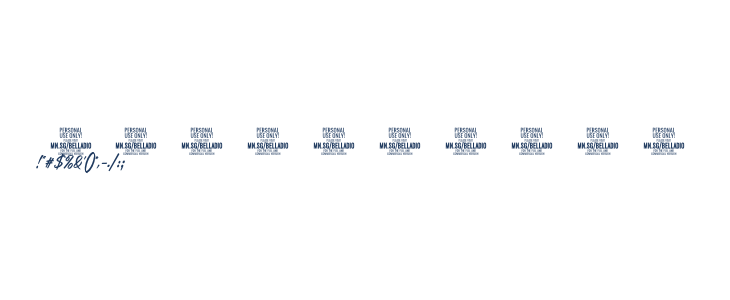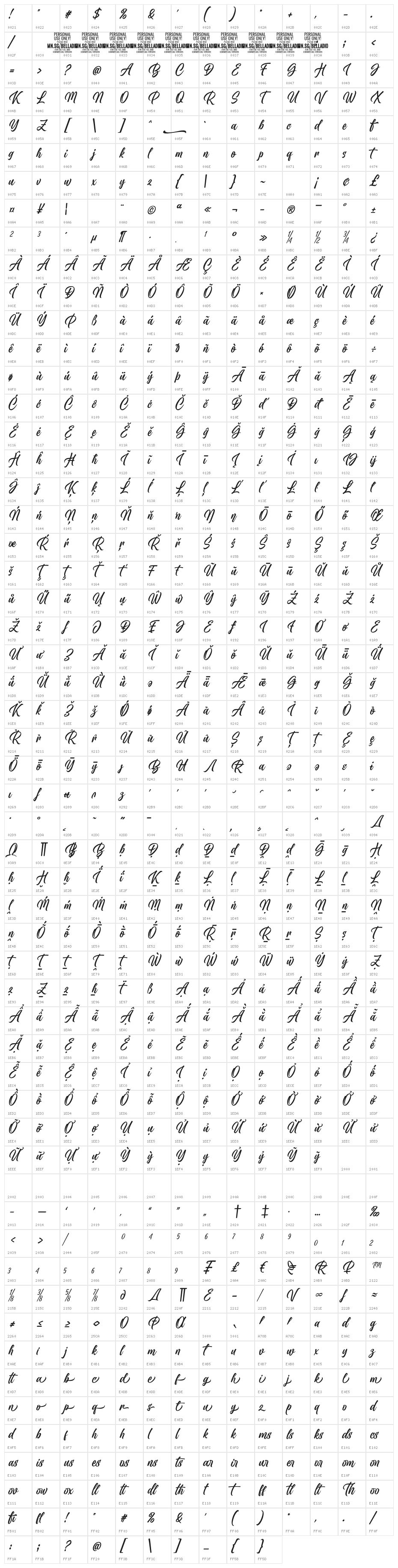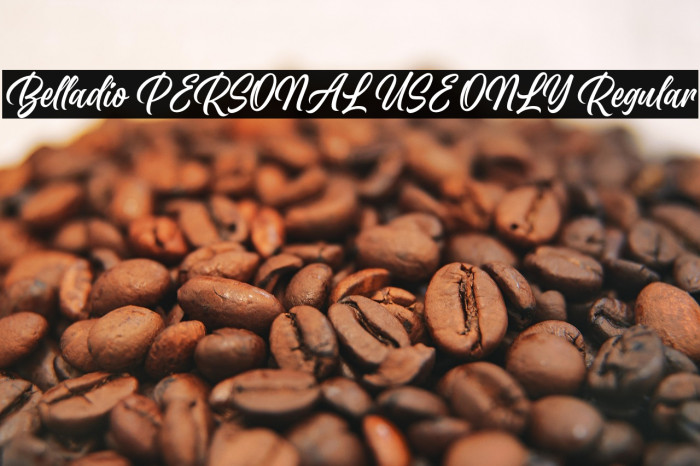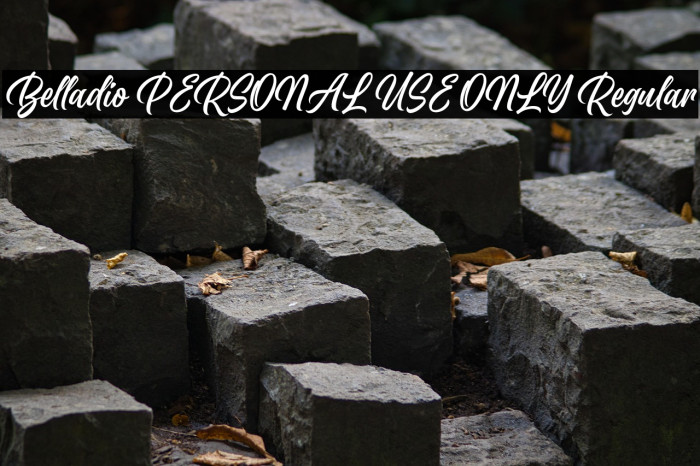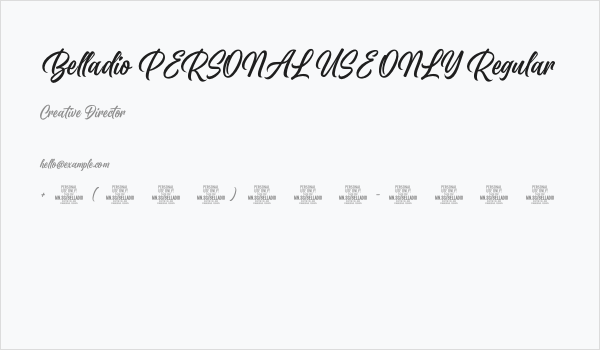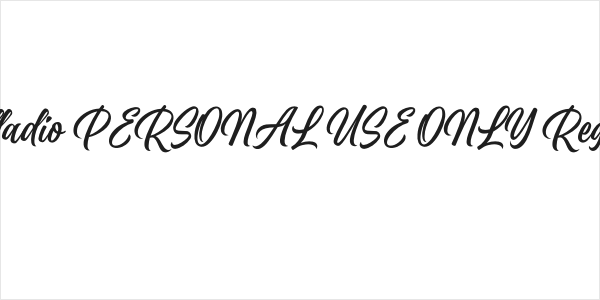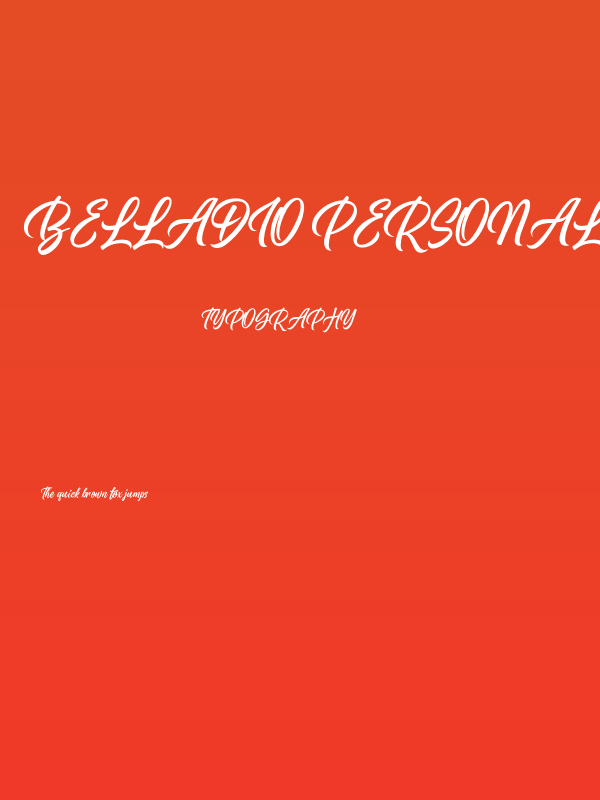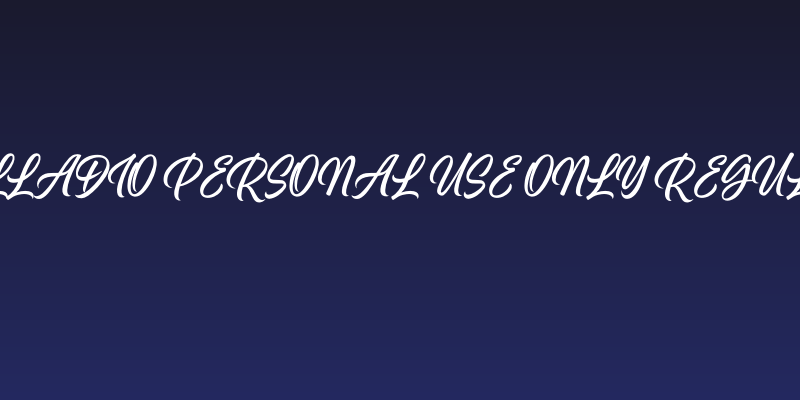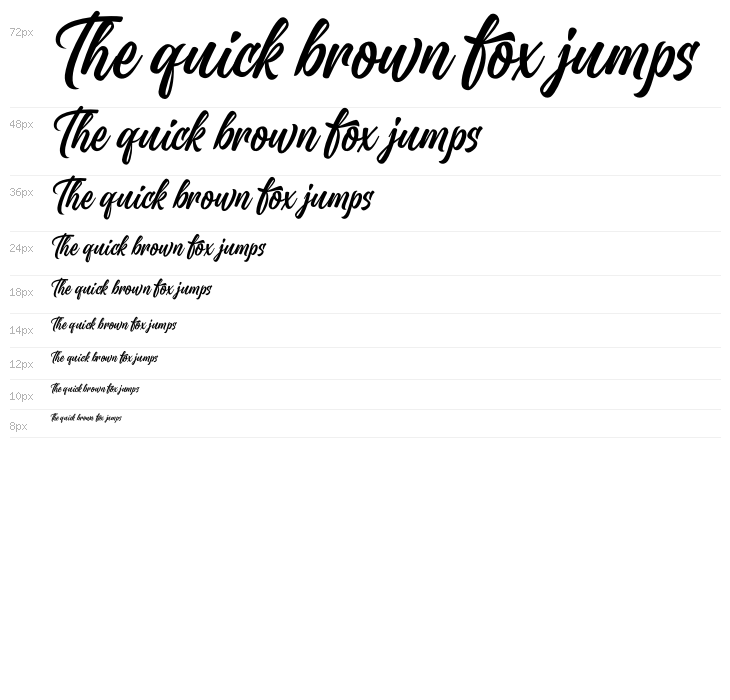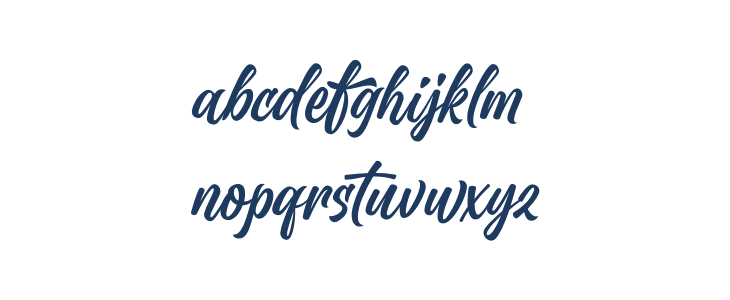
Belladio PERSONAL USE ONLY Regular Font
Belladio PERSONAL USE ONLY Regular Description
This font features a flowing, cursive style with elegant curves and a handwritten appearance. The letters are connected, giving it a smooth and continuous look, reminiscent of classic calligraphy. The uppercase letters are bold and prominent, while the lowercase letters maintain a consistent flow, enhancing readability. The font includes a full set of uppercase and lowercase letters, numbers, and a variety of special characters. Its design is both stylish and versatile, suitable for a range of creative projects.